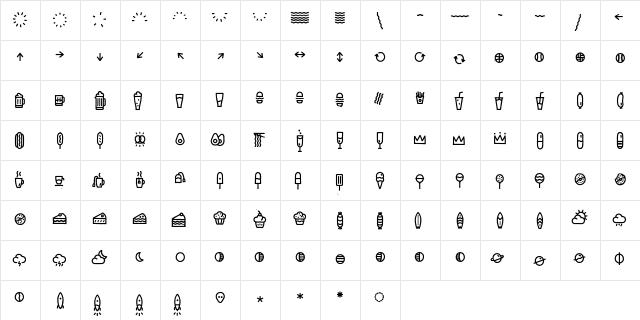
Escalope Crust Three Icons
Crust Three Icons · Julia Martinez Diana, Antipixel Julia Martinez Diana, Antipixel ·
Foundry Julia Martinez Diana, Antipixel
FoundryJulia Martinez Diana, Antipixel
DesignerJulia Martinez Diana, Antipixel
Design Context for Escalope Typeface
Escalope is a composed and adaptable typeface that performs quietly and consistently across a wide range of design contexts.